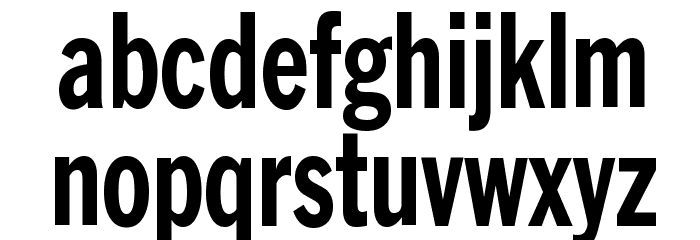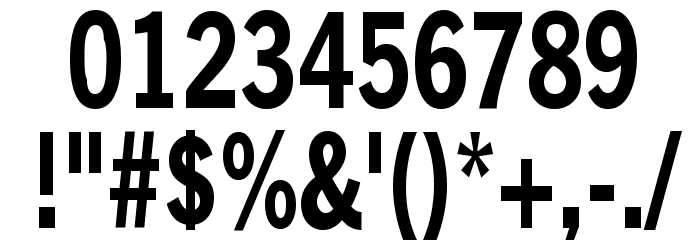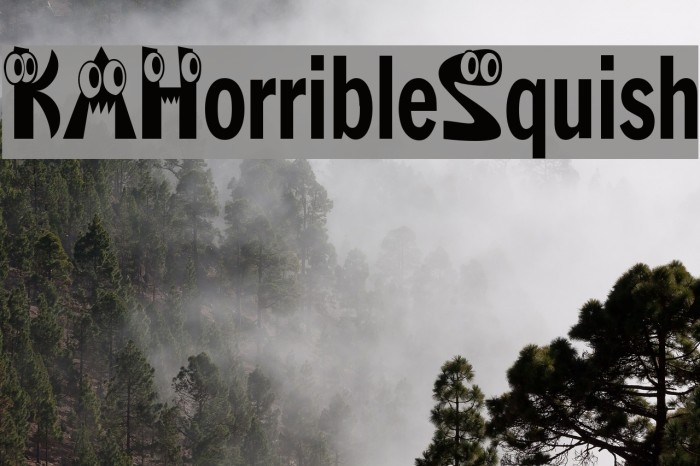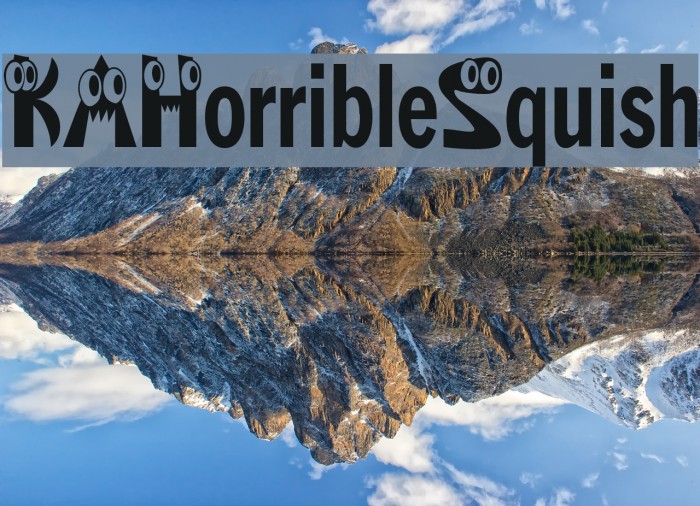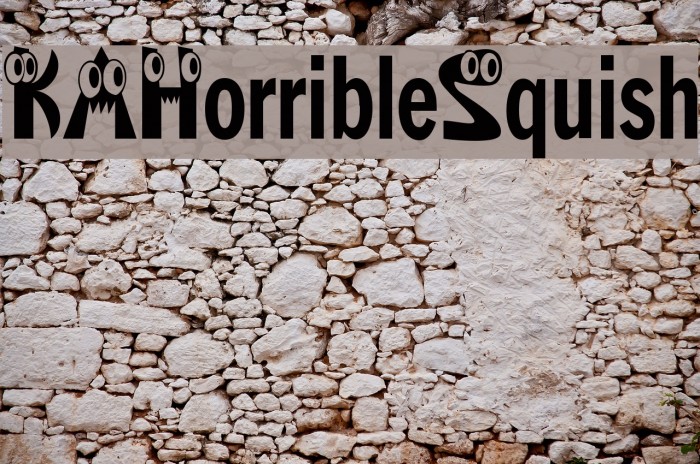
KAHorribleSquish Font
This playful and quirky font features uppercase letters with cartoonish eyes and mouths, giving each character a lively and animated appearance. The lowercase letters and numbers are bold and sans-serif, providing a strong contrast to the whimsical uppercase design. The special characters maintain the bold, clean style of the lowercase letters, ensuring consistency across the font. This unique combination of styles makes it suitable for creative and fun projects.
A playful font with animated uppercase letters and bold, clean lowercase characters.
- Proposed Projects: Ideal for children's books, Halloween-themed designs, playful branding, and eye-catching posters.